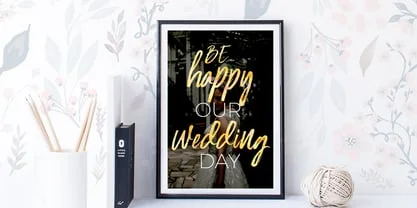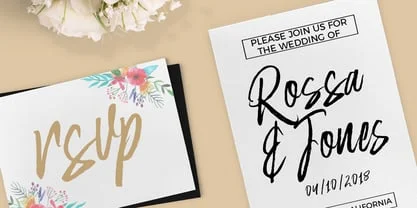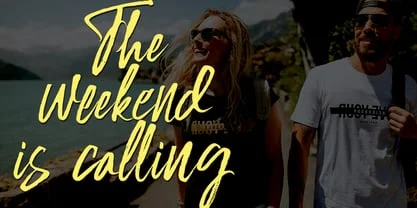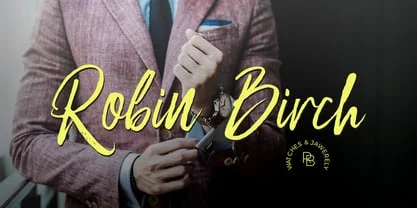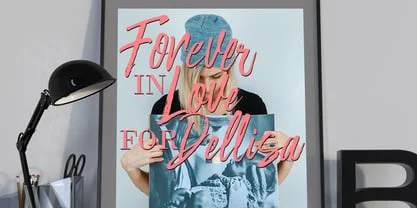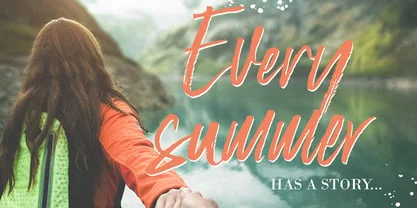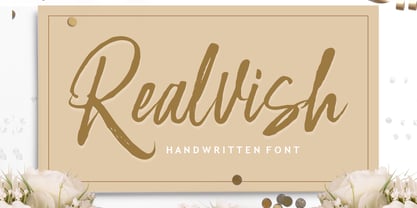
Realvish Font
Few typefaces manage to balance versatility across print and screen contexts with genuine day-to-day practicality. Realvish is one of them. The typeface brings an elegant, calligraphic sensibility to a broad range of creative disciplines, with distinctive character without sacrificing readability that holds up whether the work is print-first or screen-first.
In practice, Realvish proves particularly effective for high-end cosmetic packaging, luxury stationery, signage systems, perfume labels, logo design. Designers reaching for it find that the type decisions feel resolved rather than laboured — a useful quality when client timelines are tight.
The range of applications extends to web design, fragrance labels, greeting cards, poster creation. That breadth is deliberate: the proportions and spacing were stress-tested across a wide range of mock briefs before the typeface was finalised.
Graphic designers working on identity systems find Realvish a reliable choice for projects that demand both personality and restraint. The design avoids the self-conscious quirkiness that dates quickly, settling instead for considered distinctiveness that holds up over time.